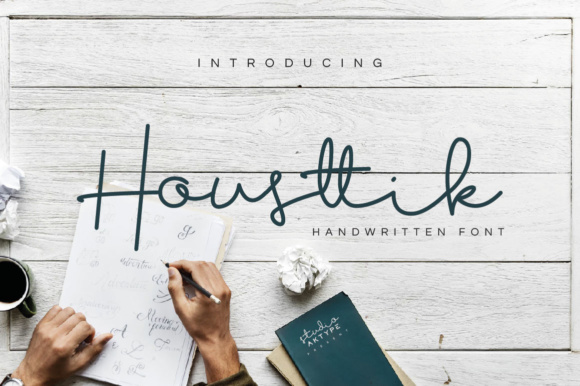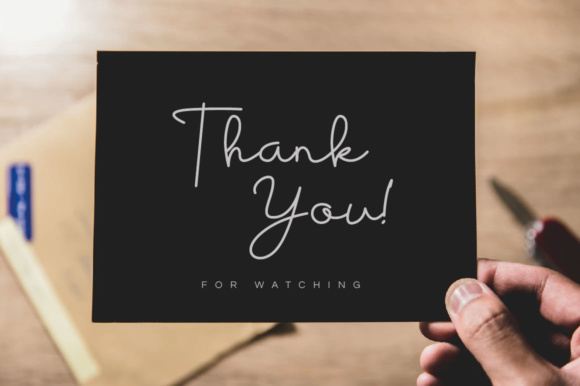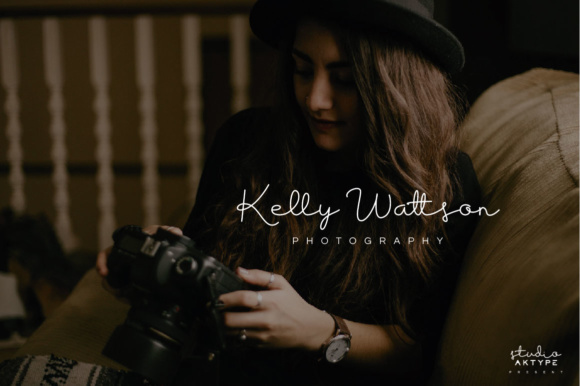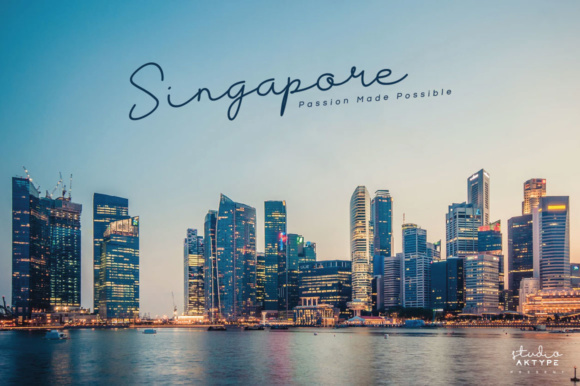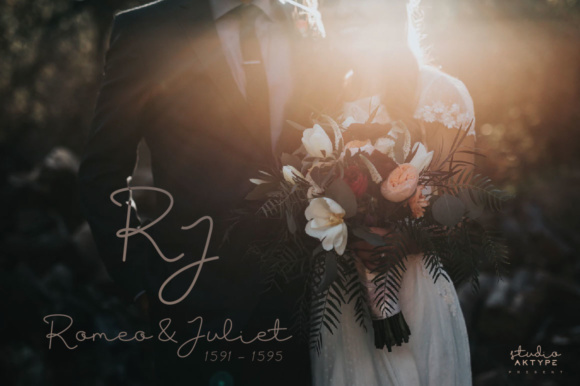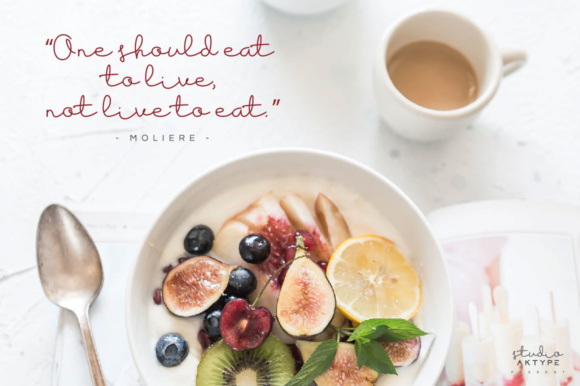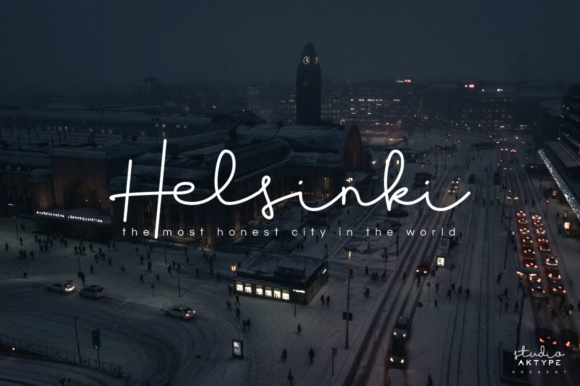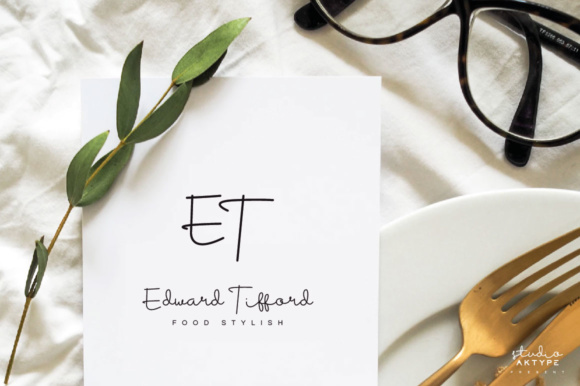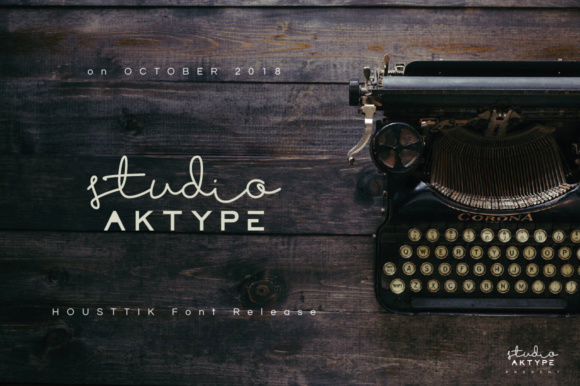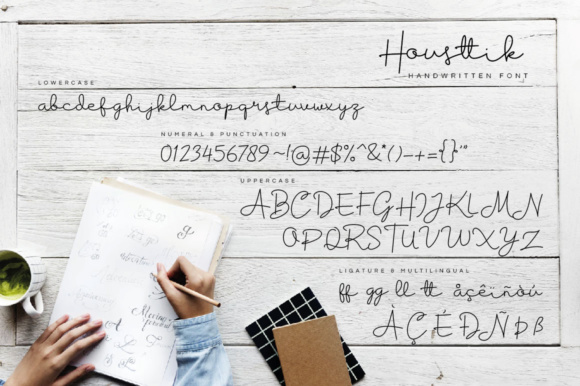
HomeScript FontsHousttik Font Script Fonts Housttik Font FacebookXPinterestWhatsApp Housttik Font Poster 2 Housttik Font Poster 3 Housttik Font Poster 4 Housttik Font Poster 5 Housttik Font Poster 6 Housttik Font Poster 7 Housttik Font Poster 8 Housttik Font Poster 9 Housttik Font Poster 10 About Housttik Font The Housttik is a elegant script font with a handwritten look. It’s clean, modern, and has a minimalist style. DOWNLOAD ON CREATIVE FABRICAThis font is sold and delivered by Creative Fabrica. Font Canyon may earn a commission if you buy through this link. People also explored Kamely Font Bellafela Font Honey Latte Font Wind Rain Font Enjoy Eating Font Astria – Handwritten Font Agnia Font Darline Script Font Retroround Font 346 0 TagsHousttik Font Previous articleBattams FontNext articleChrist Type Duo Font LEAVE A REPLY Cancel reply Comment: Please enter your comment! Name:* Please enter your name here Email:* You have entered an incorrect email address! Please enter your email address here Website: Save my name, email, and website in this browser for the next time I comment. Personal Use Free Nickainley Personal Use Free Read more about this font The Brighton Personal Use Free Read more about this font Dakwart Letter Personal Use Free Read more about this font Mini Story Personal Use Free Read more about this font BLOG Using Fonts in Digital Marketing: Tips to Strengthen Your Brand Identity In the realm of digital marketing, every visual element plays a crucial role in shaping a brand's identity, and fonts are no exception. The... Top 10 Handwritten Fonts That Elevate Your Designs Best Fonts for T-Shirt Design – Top 2025 Picks Elegant Wedding Invitation Fonts – Handwritten & Script Fonts